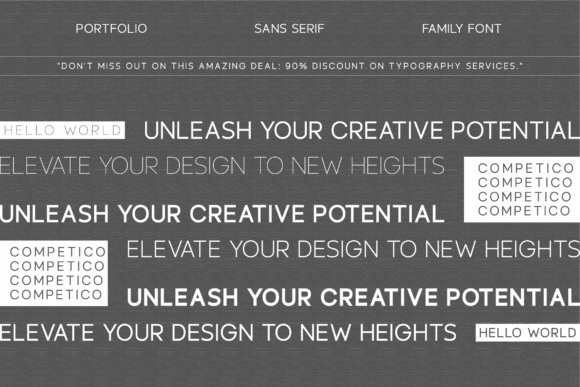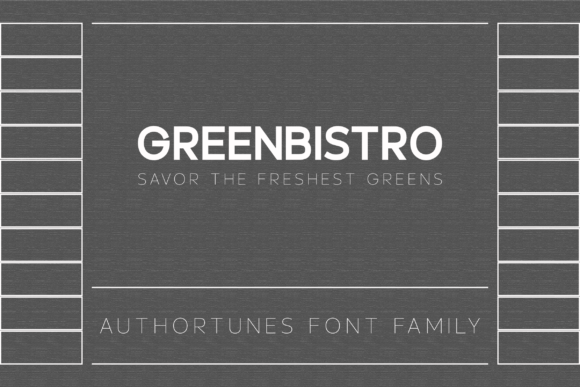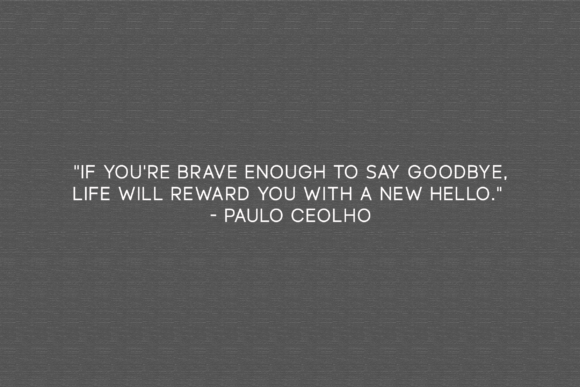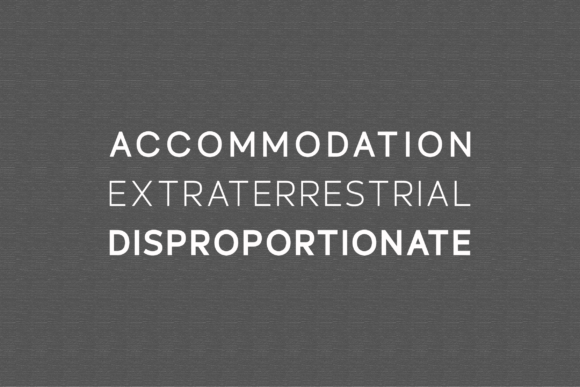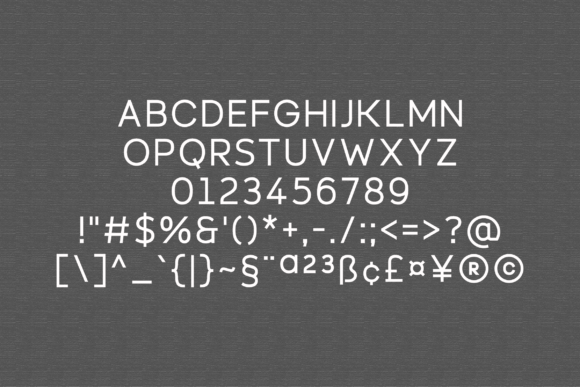
Introducing Authortunes Font: Elevate Your Designs with Elegance and Minimalism
In the world of typography, a font can make or break a design. It’s the foundation upon which the entire visual identity is built. For designers and crafters seeking to elevate their projects with a touch of sophistication, look no further than the Authortunes Font family. This exquisite collection embodies the perfect balance of elegance and minimalism, making it an indispensable tool in your design arsenal.
The Essence of Authortunes Font
Authortunes is a sans serif font family that exudes modernity and luxury. With 5 distinct weights, this versatile collection offers the flexibility to adapt to various design needs, from the subtle nuances of a magazine layout to the bold statements of a logo or film poster. Each weight is crafted with utmost precision, ensuring that every letterform contributes to a cohesive visual narrative.
Seamless Integration of Modernity and Luxury
What sets Authortunes apart is its ability to blend modern design principles with a sense of luxury. In an era where design trends are constantly evolving, this font family stands out by offering a timeless aesthetic that won’t soon become outdated. Its clean lines and uncluttered appearance make it an excellent choice for designers aiming to convey a sense of sophistication and refinement.
Enhance Your Projects with Precision and Elegance
Whether you’re working on a high-end magazine, a brand logo, or a captivating film poster, Authortunes Font is designed to enhance your project with elegance and precision. Its versatility means it can be used across various mediums, from digital platforms to print materials, ensuring consistency in your brand’s visual identity.
The Perfect Balance of Sophistication and Simplicity
The beauty of Authortunes lies in its perfect balance of sophistication and simplicity. In a design world that often finds itself oscillating between complexity and minimalism, this font family strikes a harmonious chord. It allows designers to create visually appealing and engaging content without resorting to gimmicks or overly elaborate typography.
Unlocking Timeless Charm in Your Designs
With Authortunes Font, designers have the opportunity to infuse their creations with a timeless charm. This font family doesn’t just offer a trendy solution; it provides a foundation for designs that stand the test of time. By choosing Authortunes, you’re not just selecting a font; you’re embracing a design philosophy that values elegance, simplicity, and effectiveness.
Why Choose Authortunes Font?
- Versatility: With 5 distinct weights, Authortunes offers the flexibility needed for a wide range of design projects.
- Elegance and Minimalism: Its clean and sophisticated design makes it perfect for projects requiring a touch of luxury and modernity.
- Precision Craftsmanship: Each letterform is crafted with precision, ensuring high-quality design outputs.
- Timeless Appeal: Authortunes boasts a timeless aesthetic, ensuring your designs remain relevant over time.
In conclusion, the Authortunes Font family is a game-changer for designers and crafters seeking to elevate their projects with elegance, minimalism, and a touch of luxury. Its versatility, precision craftsmanship, and timeless appeal make it an invaluable asset in the world of design. By choosing Authortunes, you’re not just enhancing your designs; you’re giving them a lasting impact.